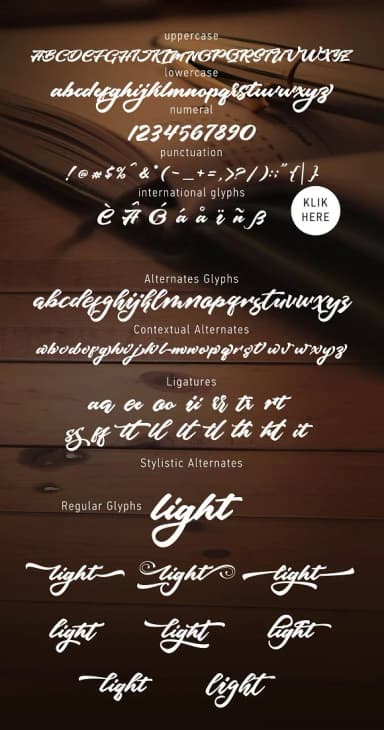
1 / 8About Hangtuah Font
Hangtuah by Olexstudio is an expressive handwritten script defined by elegant, flowing letterforms that infuse genuine personality into every design. The font achieves a refined balance between readability and artistic expression, making it equally at home in professional branding applications and personal creative endeavors. Its organic, authentic strokes feel genuinely drawn by hand while maintaining consistent letterforms throughout the entire character set.
This versatile typeface excels at creating custom wedding invitation suites with distinctive personality, designing boutique brand identities that feel intimate and approachable, and crafting handmade DIY greeting cards and stationery that capture authentic handwriting warmth. Whether you're developing luxury product packaging for artisan goods, creating social media graphics for lifestyle and wellness brands, or hand-lettering event signage and promotional materials, Hangtuah delivers consistent elegant expression across every application. The font includes stylistic alternates that let you vary letterforms for visual richness and unlimited creative customization throughout your work. Its clean, legible design renders beautifully at any scale, from small label text to large display applications.
Hangtuah's combination of professional refinement and organic warmth makes it an ideal choice for projects requiring genuine human connection and authentic visual presence. Discover Hangtuah on Creative Fabrica and bring sophisticated handwritten elegance to your next creative endeavor.
Hangtuah Font is a script font that shines as a display or heading face. Pair it with a clean sans-serif or serif font for body text β the contrast creates a clear hierarchy while the two styles stay balanced and easy to read.
Hangtuah Font
by Olexstudio